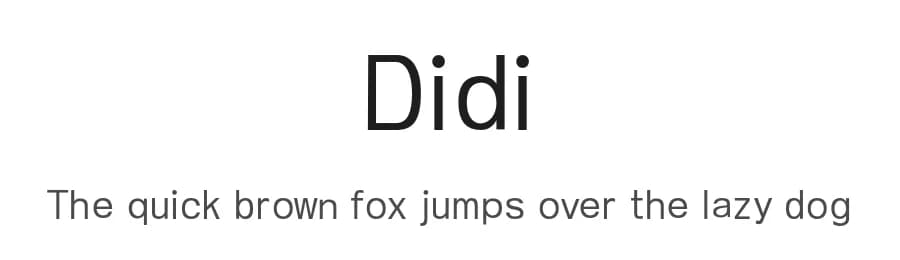
About Didi Font
Elegant and simple in 3 sizes out of 8 styles are the hallmarks of this font. suitable for the use of a simple design theme / simple but stylish.
Didi font consists of 8 styles, namely:
-Light
-Light italic
-Regular
-Italic
-Bold
-Bold italic
-Black
-Black italic
Didi Font is a versatile sans-serif font that works for both headings and body text. Pair it with a contrasting serif or slab serif font to add visual interest and a clear distinction between titles and body copy.